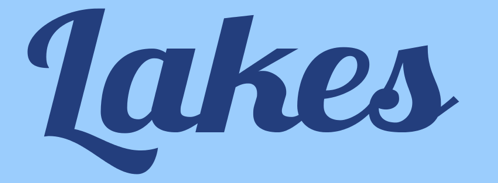
Font identification help
All the websites have failed me, can someone please identify this font? I have looked at a lot that are close but he k seems to be what can't be identified.